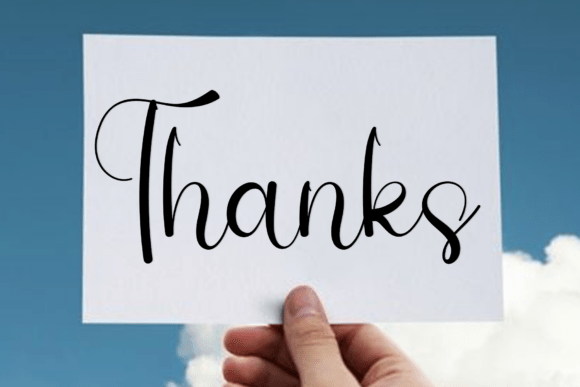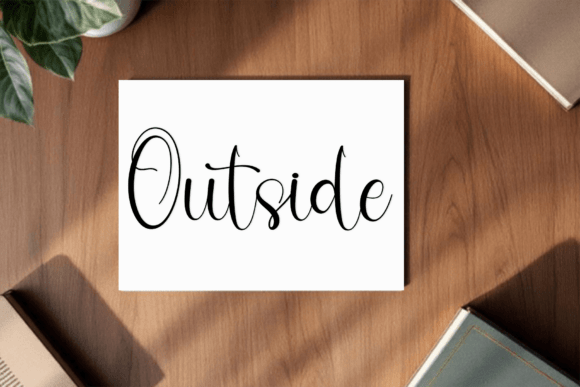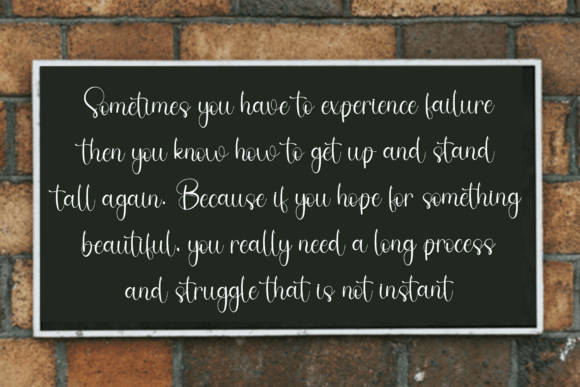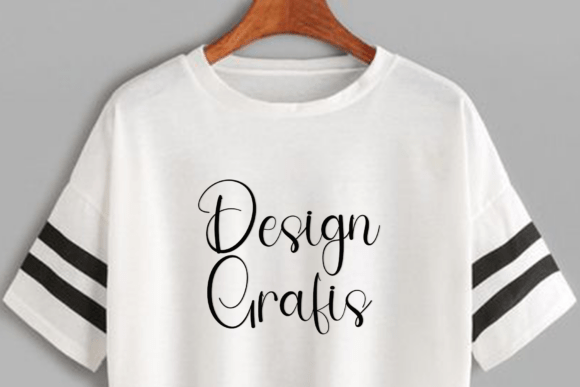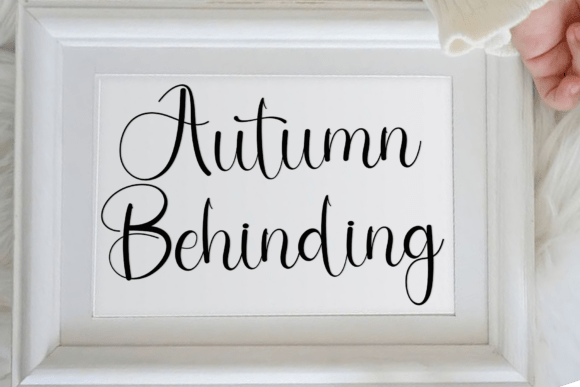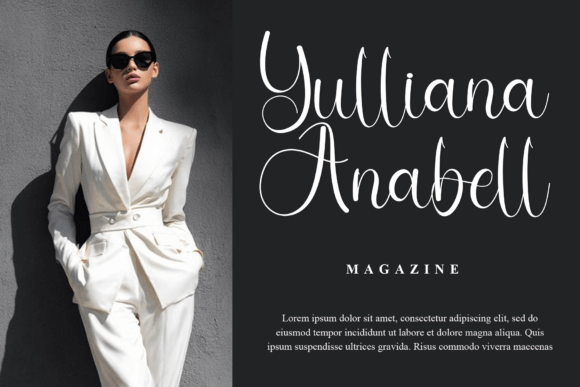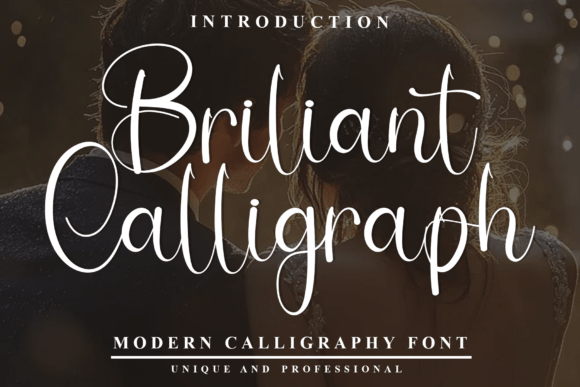
Professional Elegance and Flowing Perfection: The Briliant Calligraph Font
In the world of typography, few fonts capture the essence of elegance and sophistication as effortlessly as the Briliant Calligraph font. This stunning modern calligraphy typeface is designed to bring professional-grade elegance to your creative projects, making it the perfect addition to your toolkit. With its long, sweeping swashes and delicate terminals, the Briliant Calligraph font creates a visual flow that feels like a choreographed dance, elevating your designs to new heights of refinement and poise.
The Gold Standard for Romantic and Formal Typography
The Briliant Calligraph font is widely regarded as the “gold standard” for romantic and formal typography. Its intricate details and flowing lines make every word feel like a work of art, perfect for high-stakes projects where first impressions are everything. Whether you’re designing gala invitations, luxury brand identities, or wedding signage, this font is sure to impress. Its elegant and sophisticated demeanor makes it an excellent choice for designers and crafters looking to add a touch of luxury to their creations.
Unleash High-End Craftsmanship in Your Designs
Utilizing the Briliant Calligraph typeface allows you to inject high-end craftsmanship into your designs instantly. This font excels in large-scale applications like wedding signage, hero banners on bridal websites, and decorative photography overlays. Its long swashes and delicate terminals create a sense of movement and fluidity, drawing the viewer’s eye through the text with ease. With the Briliant Calligraph font, you can elevate your designs and give them a professional, high-end feel that’s sure to leave a lasting impression.
Tips for Using the Briliant Calligraph Font
To bring out the best in the Briliant Calligraph font, it’s essential to use it with generous leading. This allows the long swashes and flowing lines to breathe, creating a sense of elegance and sophistication. Pairing the Briliant Calligraph font with a classic, light-weight serif font is also recommended. This contrast between the elegant, cursive script and the clean, simple serif font creates a beautiful visual balance that’s perfect for high-end designs.
Ideal Applications for the Briliant Calligraph Font
The Briliant Calligraph font is perfect for a variety of applications, including:
- Gala Invitations: Make a lasting impression with elegant and sophisticated gala invitations that set the tone for a luxurious event.
- Luxury Brand Identities: Elevate your brand with a high-end, sophisticated typeface that exudes refinement and poise.
- Wedding Signage: Create beautiful, eye-catching wedding signage that captures the essence of the special day.
- Bridal Website Banners: Make a stunning first impression with hero banners that showcase the Briliant Calligraph font’s elegant, flowing lines.
- Decorative Photography Overlays: Add a touch of elegance to your photography overlays with the Briliant Calligraph font’s delicate terminals and sweeping swashes.
The Briliant Calligraph font is a stunning modern calligraphy typeface that brings professional-grade elegance to your creative projects. With its long, sweeping swashes and delicate terminals, this font creates a visual flow that feels like a choreographed dance. Perfect for high-stakes projects where first impressions are everything, the Briliant Calligraph font is sure to impress. By incorporating this font into your designs, you can inject high-end craftsmanship and sophistication, elevating your creations to new heights of refinement and poise.
Whether you’re a designer, crafter, or simply someone looking to add a touch of luxury to your creative projects, the Briliant Calligraph font is an excellent choice. Its elegant and sophisticated demeanor makes it perfect for a variety of applications, from gala invitations to luxury brand identities. So why settle for ordinary typography when you can have professional elegance and flowing perfection? Choose the Briliant Calligraph font for your next project and experience the difference for yourself.